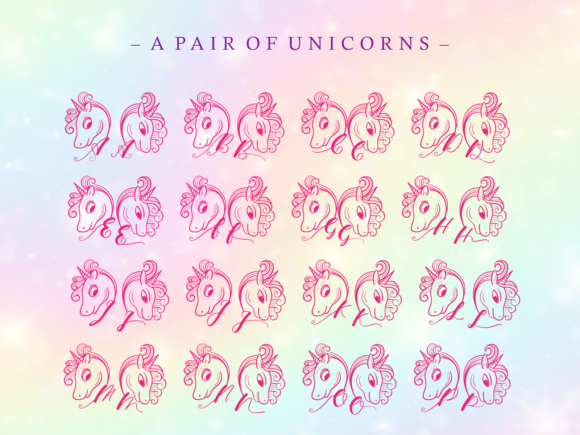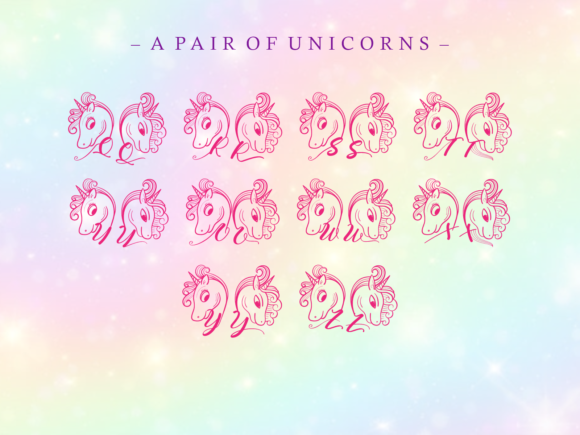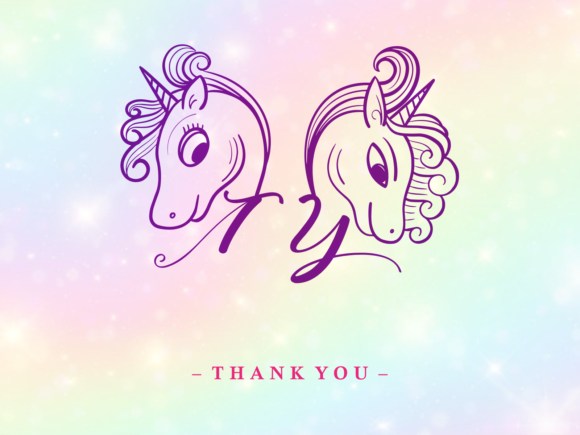
Where Magic Meets Typography: Unveiling the Enchanting A Pair of Unicorns Font
Have you ever been scrolling through design inspiration boards, and suddenly, a font catches your eye? Maybe it’s the whimsical touch, the elegant flair, or the sheer uniqueness that makes your heart skip a beat. For designers, discovering a new font that sparks creativity is like stumbling upon a hidden treasure. And that’s exactly what happens when you lay eyes on the A Pair of Unicorns Font.
This angelic decorative font is more than just a pretty face; it’s a powerful tool for creatives who want to add a touch of magic to their designs. With its cool unicorns as ornaments, A Pair of Unicorns Font is perfect for crafting gorgeous wedding invitations, beautiful stationary art, eye-catching social media posts, and so much more.
- Unique Characteristics: Hand-drawn, whimsical design with intricate details and a touch of fantasy
A Designer’s Review of A Pair of Unicorns Font
Overall, I’m quite pleased with A Pair of Unicorns Font. It’s a unique and whimsical choice for any project that requires a touch of magic ✨. The font’s delicate curves and playful illustrations of unicorns add a lighthearted feel to any text.
- The font is highly legible, even at smaller font sizes ✨.
- The unicorns are intricately designed and offer a lot of customization options ✨.
- The font supports a wide range of languages, making it a versatile choice ✨.
However, there are a few limitations to consider ⚠️:
- The font may not be suitable for formal or professional projects, as it’s quite playful and whimsical ⚠️.
- The unicorns can be distracting if used extensively, so it’s best to use them sparingly ⚠️.
Overall, I’d give A Pair of Unicorns Font 4 out of 5 stars. It’s a fun and creative choice that’s perfect for projects that require a touch of magic. Just be sure to use it thoughtfully and in moderation to avoid overwhelming your audience.
Tip: Use the A Pair of Unicorns Font for whimsical and magical designs, such as birthday invitations or children’s party decorations.
Tip: Use the A Pair of Unicorns Font for creative and artistic designs, such as fantasy book covers or greeting cards.
Tip: Use the A Pair of Unicorns Font for presentations or documents that require a touch of magic and wonder.
The A Pair of Unicorns Font is perfect for:
- Birthday invitations and party decorations
- Fantasy book covers and illustrations
- Greeting cards and gift tags
- Presentations and documents that require a touch of magic